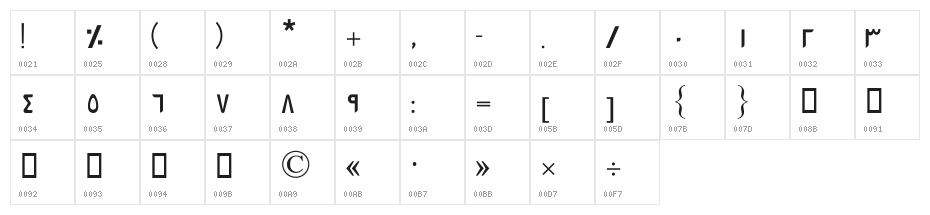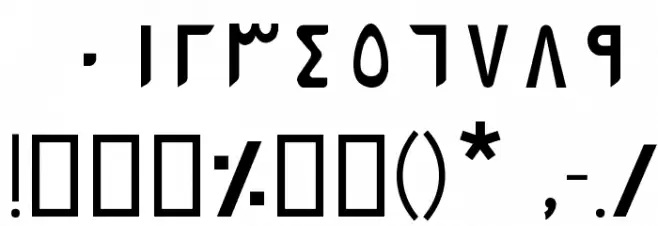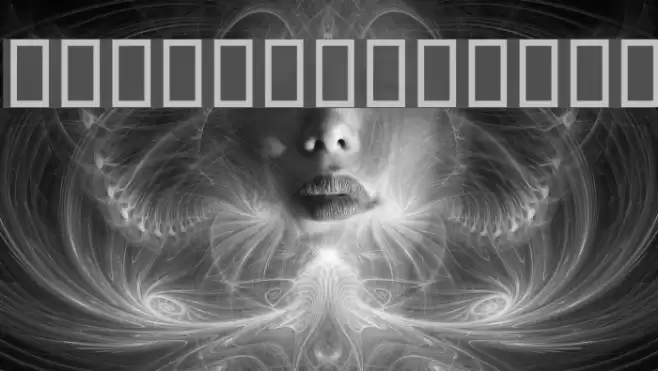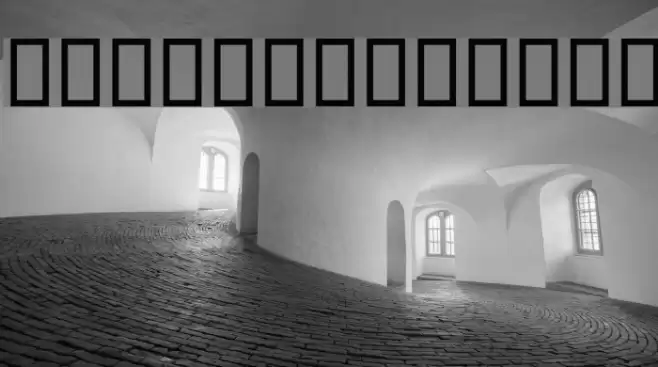
Dubai Font
Dubai Description
This font features a modern and geometric design with clean lines and a structured appearance. The characters are uniform in width, giving it a monospaced feel, although it is not strictly monospaced. The uppercase letters are bold and assertive, while the lowercase letters maintain a consistent style that complements the uppercase. The numerals are distinct and easy to read, with a slightly futuristic touch. Special characters are designed to match the overall aesthetic, ensuring a cohesive look across all text elements. This font is ideal for projects that require a contemporary and professional appearance.
| Use Case | Headlines, Logos, Digital Interfaces |
| Proposed Projects | Ideal for branding, digital interfaces, modern print media, and signage. |